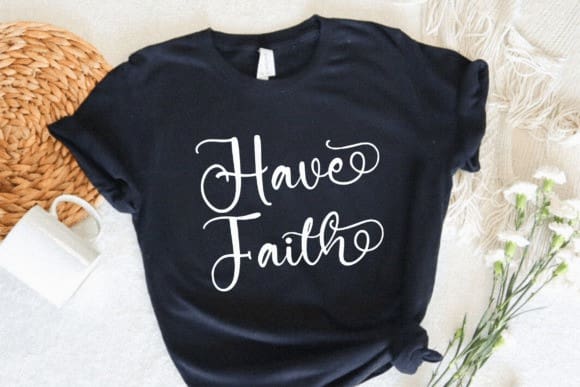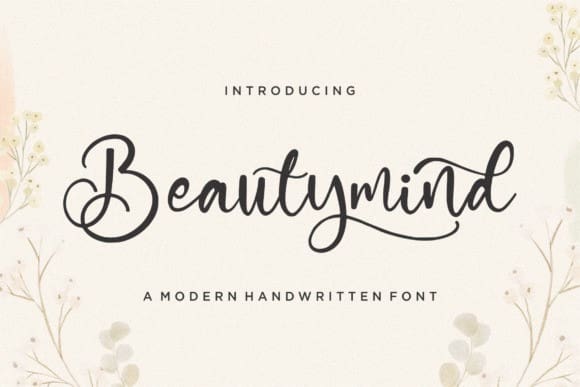
Beautymind Script Font
Beautymind Script Font, is perfect for product packaging, branding project, megazine, social media, wedding, or just used to express words above the background.